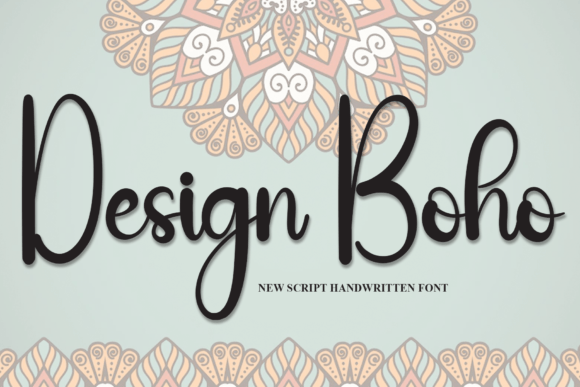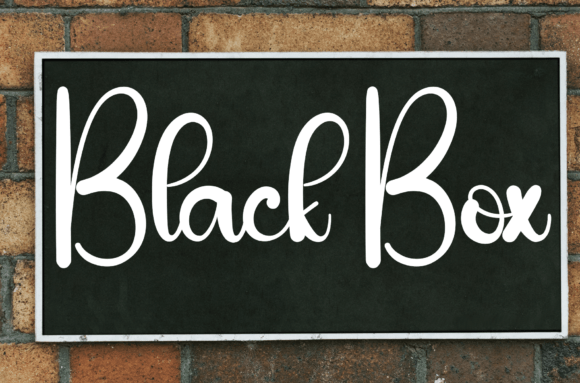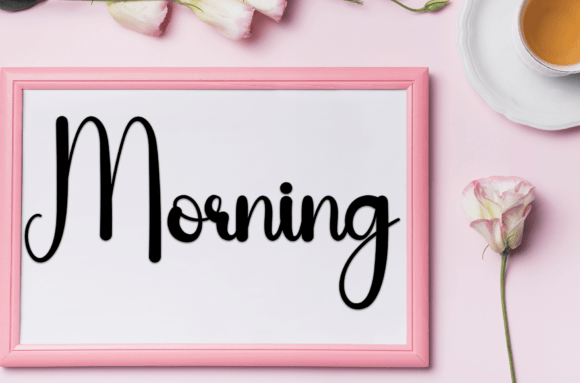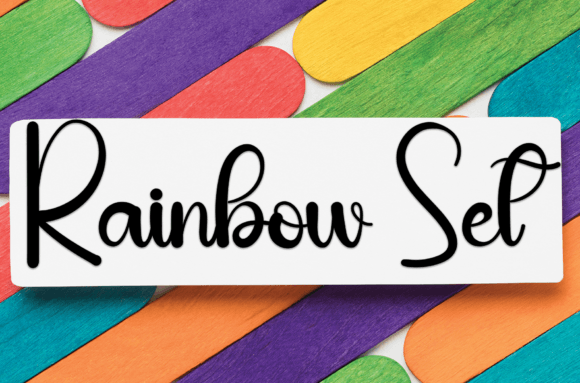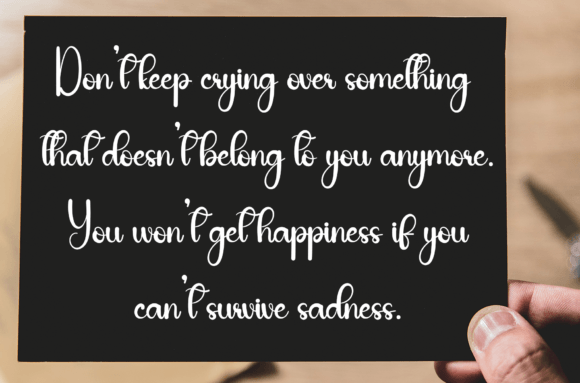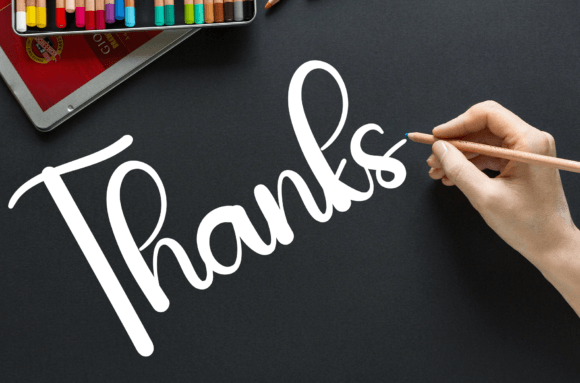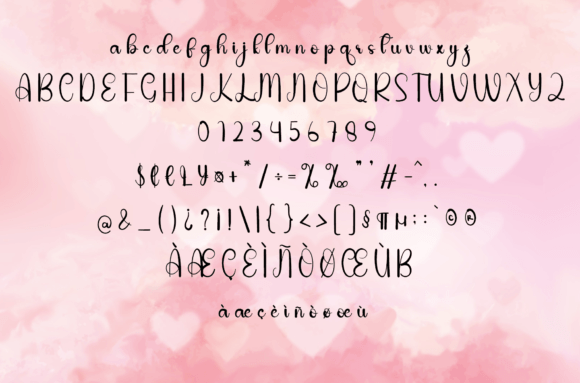
Design Boho
Design Boho is a sweet and friendly handwritten font. Creative and cute, this font is ideal for writing wedding invitations, cards, or any other design that might need a fun touch!